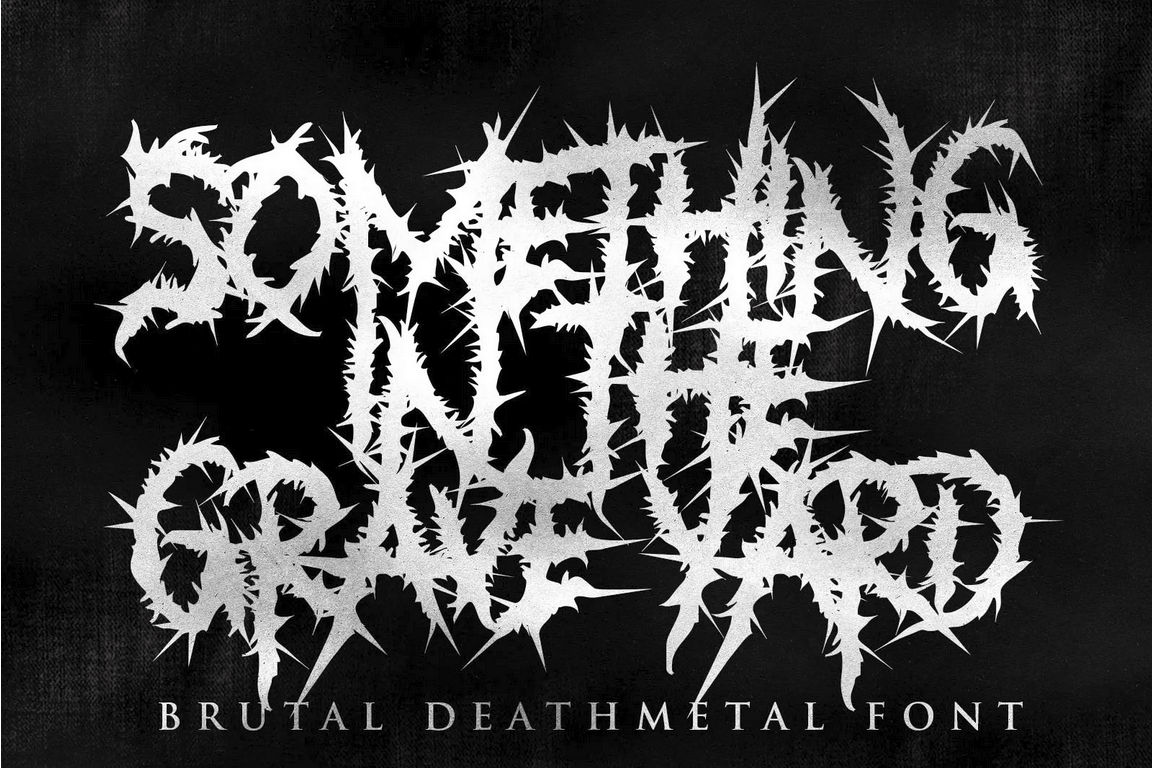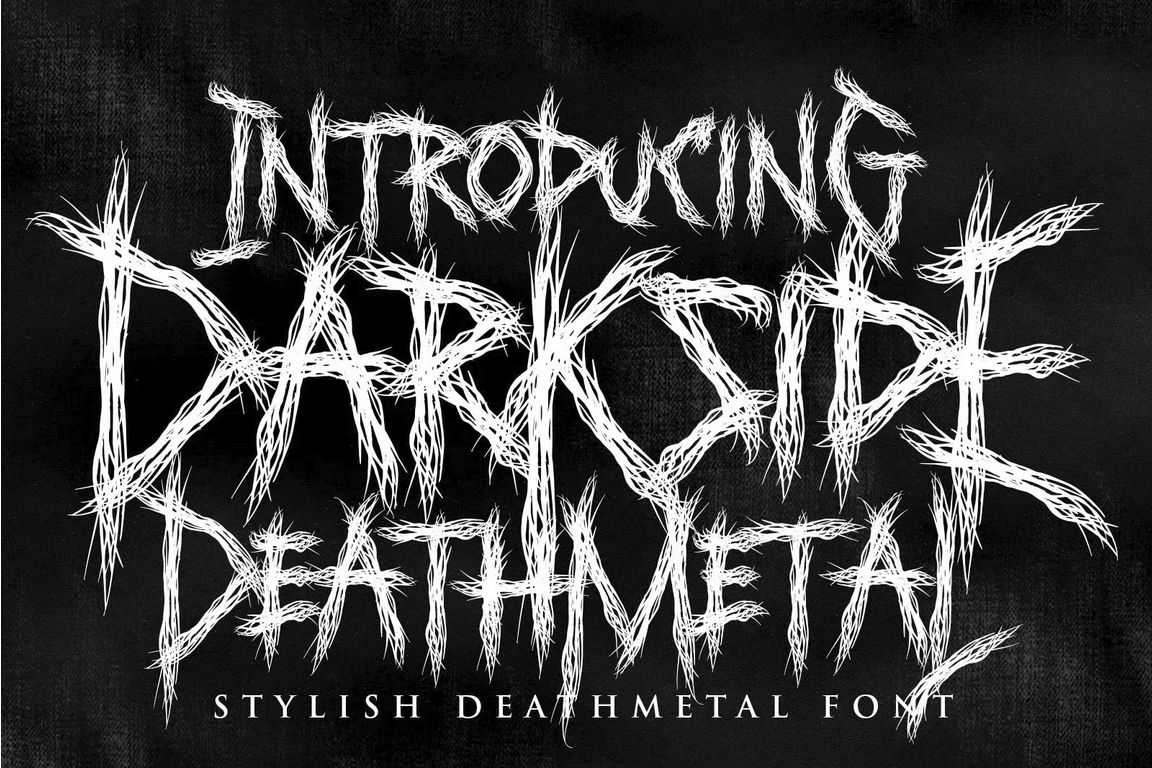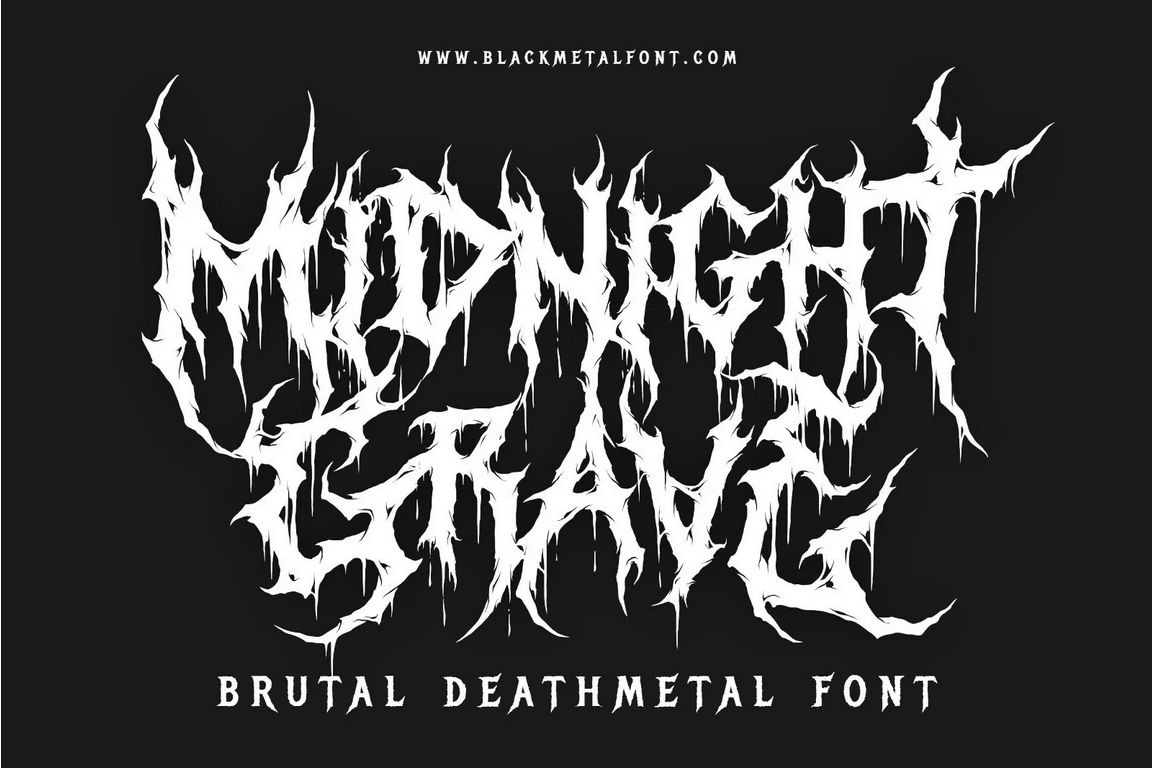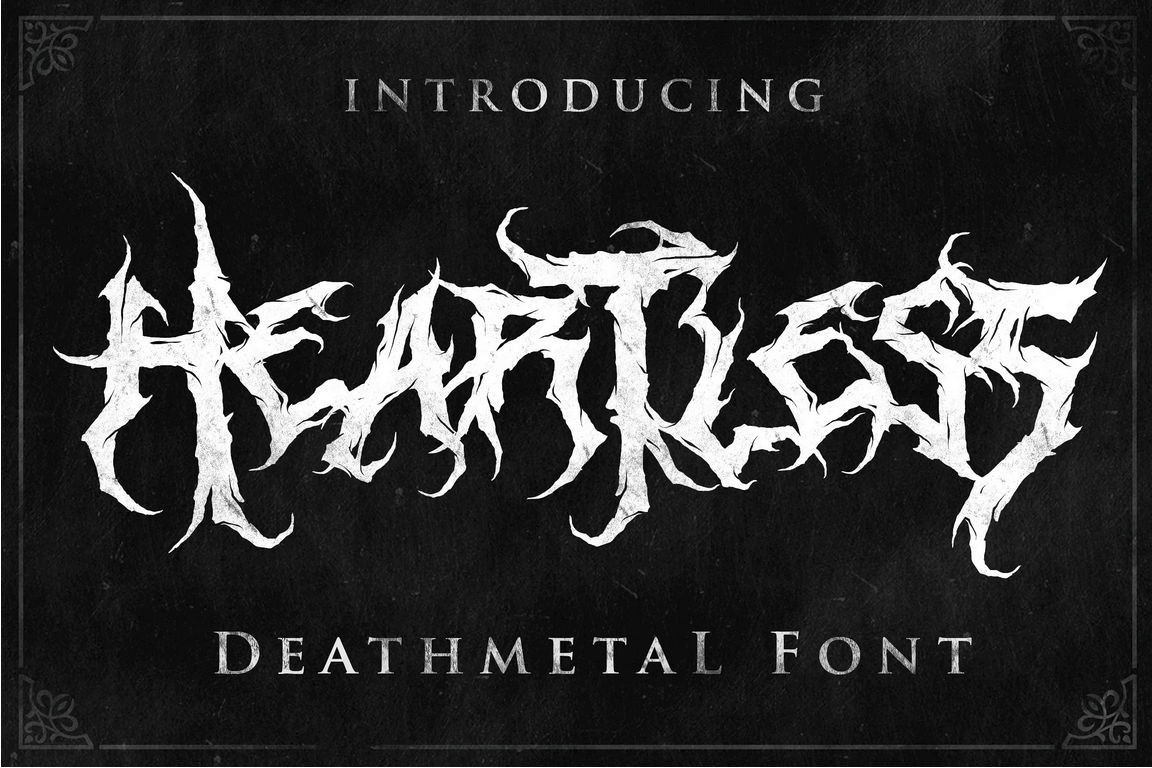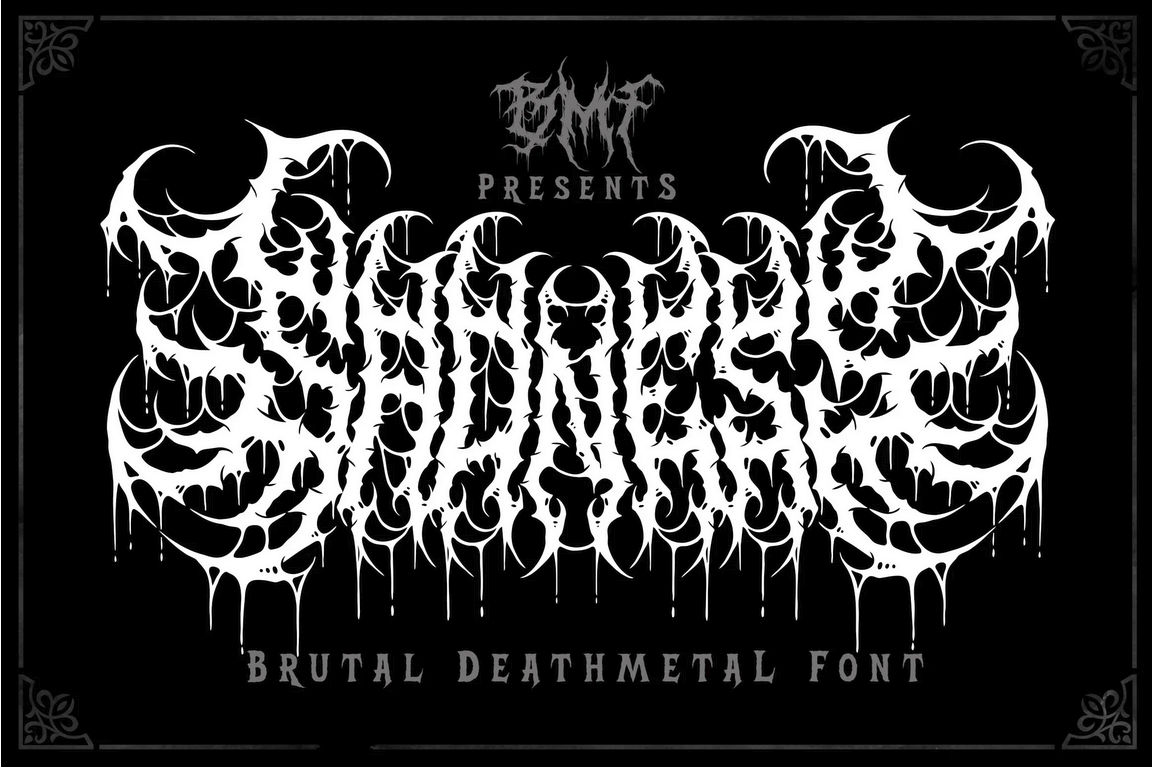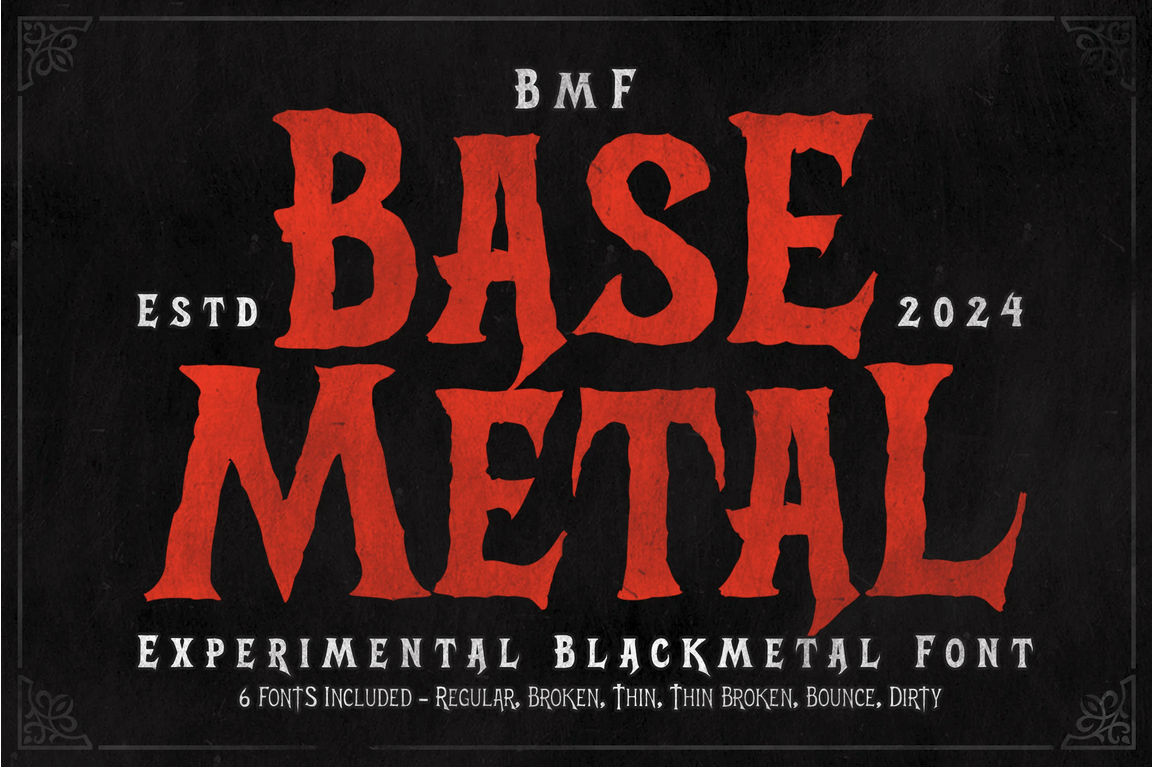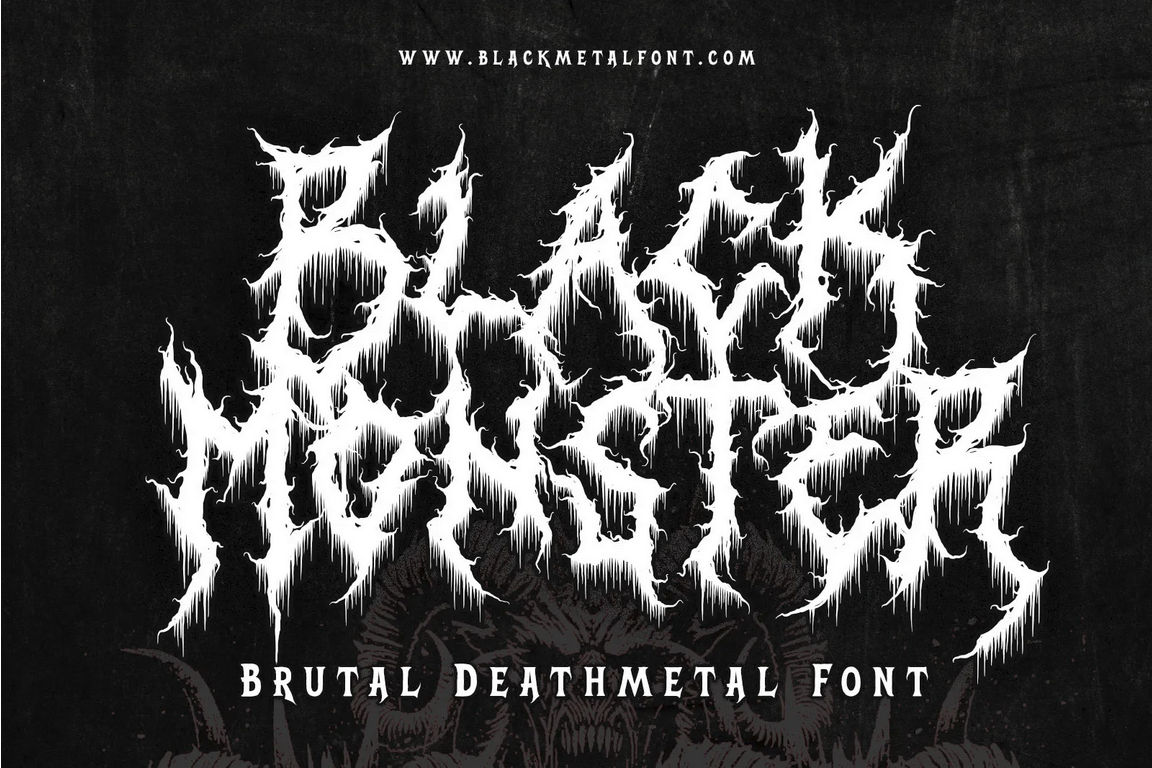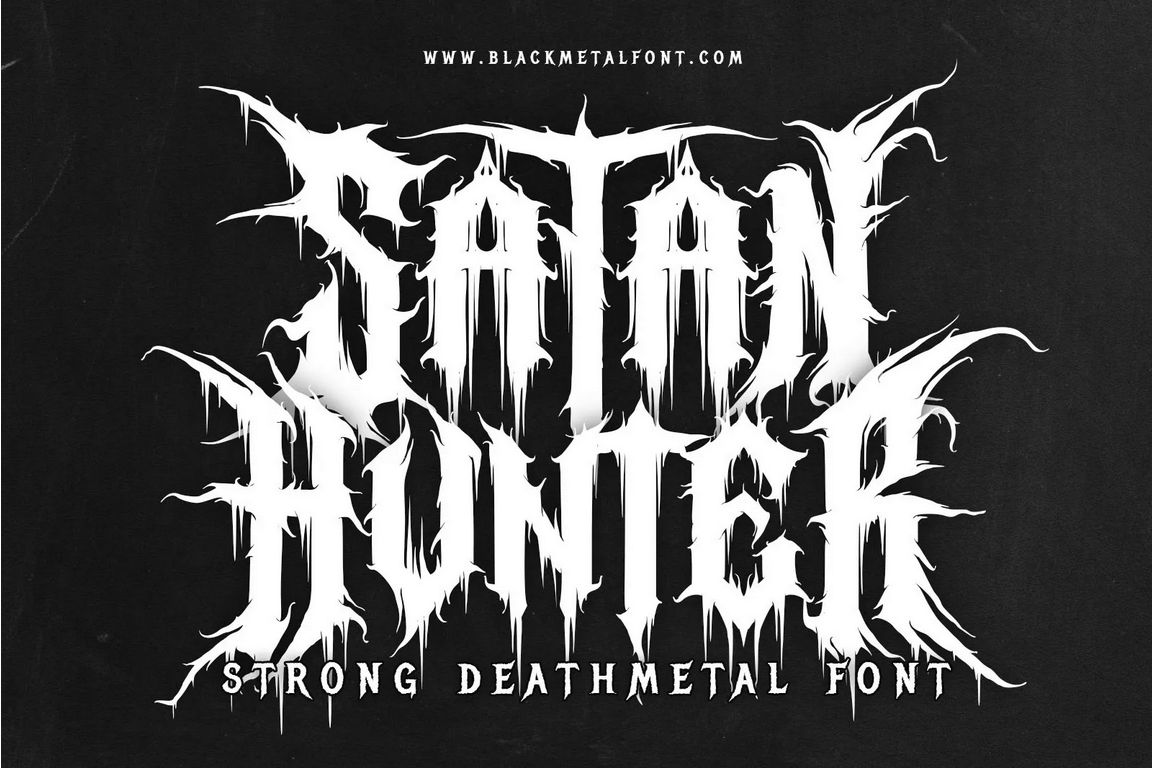
8 Best Black Metal Fonts for Brutal and Extreme Designs
Black metal fonts are essential for creating extreme, aggressive, and dark-themed designs. Whether you’re designing band logos, merchandise, posters, or album covers, having the right font can make all the difference. Here are 8 of the best black metal fonts that will bring brutality and chaos to your artwork.
1. Satan Hunter – Strong Death Metal Font
Satan Hunter is a bold and sharp black metal font that embodies the essence of extreme metal. With its spiky, aggressive lettering, it is perfect for band logos, posters, and brutal branding
2. Something in the Graveyard – Brutal Death Metal Font
This chaotic and thorny black metal font features razor-sharp strokes that resemble tree branches and roots, making it ideal for horror-themed designs and underground music projects
3. Midnight Grave – Brutal Death Metal Font
Midnight Grave combines dripping, decayed aesthetics with an eerie, brutal style. Its irregular structure gives off a raw and unpolished feel, perfect for extreme metal visuals.
4. Heartless – Death Metal Font
One of the most premium black metal fonts, Heartless is a hardcore font with a sinister and rebellious look. It’s ideal for exclusive branding, high-end band merchandise, and major projects.
5. Darkside Black Metal – Stylish Death Metal Font
Darkside brings a modern twist to black metal typography with its stylish and jagged strokes. It is versatile enough for both underground and mainstream metal branding.
6. Sadness Black Metal – Brutal Death Metal Font
Featuring dripping and distorted strokes, Sadness Black Metal captures the essence of doom and despair. It is ideal for horror movies, metal album covers, and gothic designs.
7. BMF Base Metal – Experimental Black Metal Font
This font comes with 6 different styles, making it one of the most versatile black metal fonts. From broken and dirty to thin and bouncy, BMF Base Metal is perfect for album covers, branding, and gothic design.
8. Black Monster – Brutal Death Metal Font
Black Monster is a highly detailed and aggressive black metal font that looks perfect for underground music, horror posters, and extreme branding. Its jagged edges and terrifying design make it one of the best choices for brutal aesthetics.
Final Thoughts
Choosing the right black metal font is crucial for capturing the intensity and darkness of the genre. Whether you’re a designer or a musician, these 8 black metal fonts will elevate your projects with their brutal, chaotic, and extreme aesthetics.